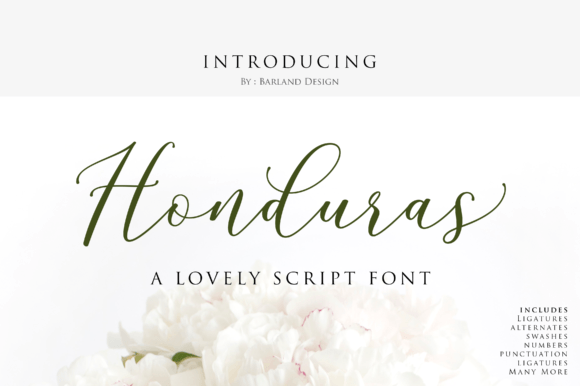
Journey into the world of Honduras Script Font, a modern calligraphy masterpiece that will captivate your senses and leave an indelible mark on your creative projects. With each stroke meticulously crafted, this font exudes elegance and sophistication, making it the perfect choice for adding a touch of timeless charm to your designs.
Honduras Script Font isn't just a font; it's an experience. Its delicate curves and sweeping flourishes dance across the page, evoking a sense of romance and nostalgia. Whether you're designing wedding invitations, creating logos, or crafting social media posts, this font will elevate your work to new heights.
But what truly sets Honduras Script Font apart is its versatility. Its ability to effortlessly blend with various design styles makes it a must-have for any creative toolbox. From classic and timeless to modern and edgy, this font seamlessly adapts to your vision, ensuring that your projects always stand out.
With Honduras Script Font, you'll have the power to transform ordinary words into works of art. Its beautiful glyphs and ligatures add an extra layer of sophistication, allowing you to create designs that are both visually stunning and emotionally resonant.
So, unleash your creativity and embark on a journey of self-expression with Honduras Script Font. Let its captivating charm take hold as you create designs that leave a lasting impression. Experience the magic of Honduras Script Font today!